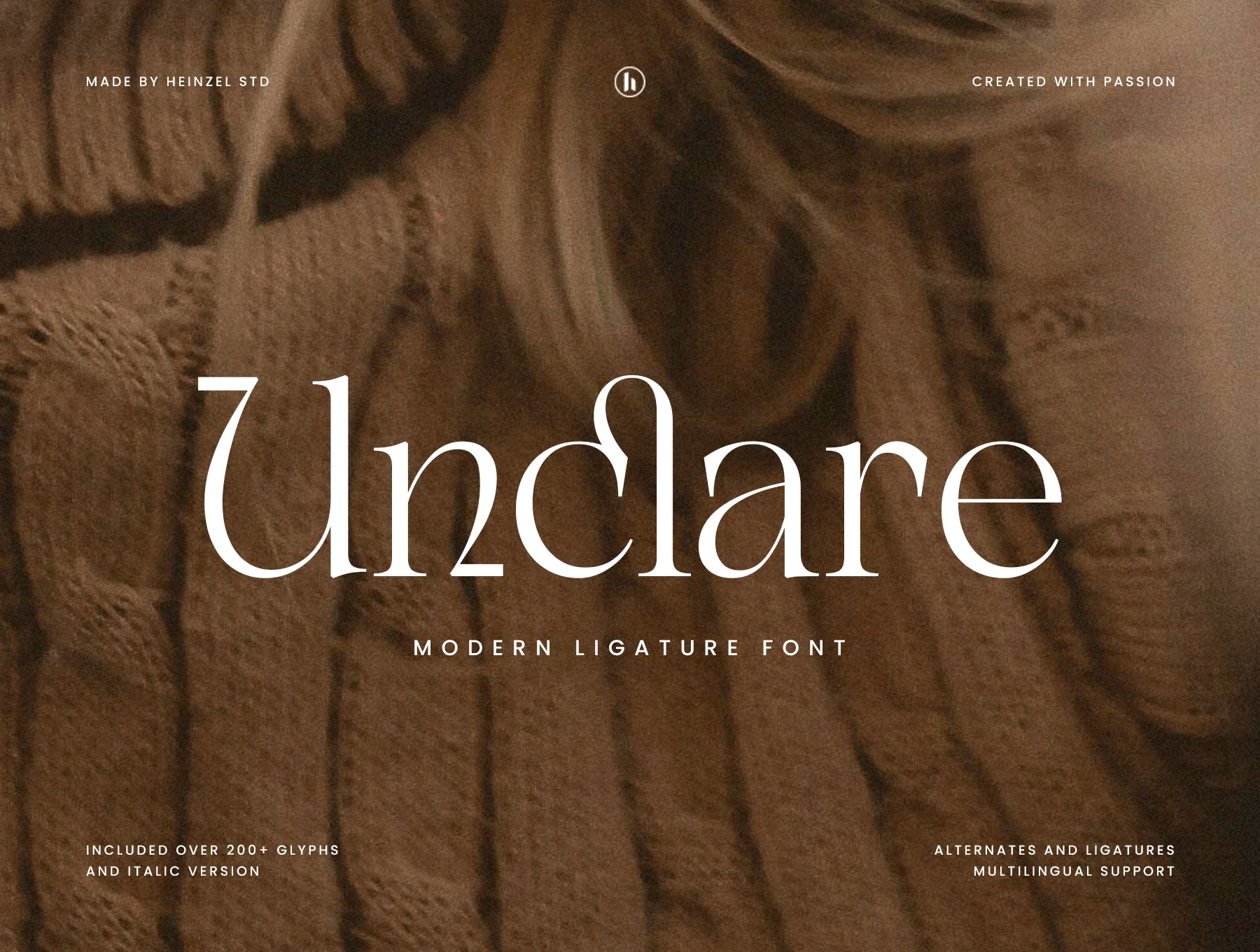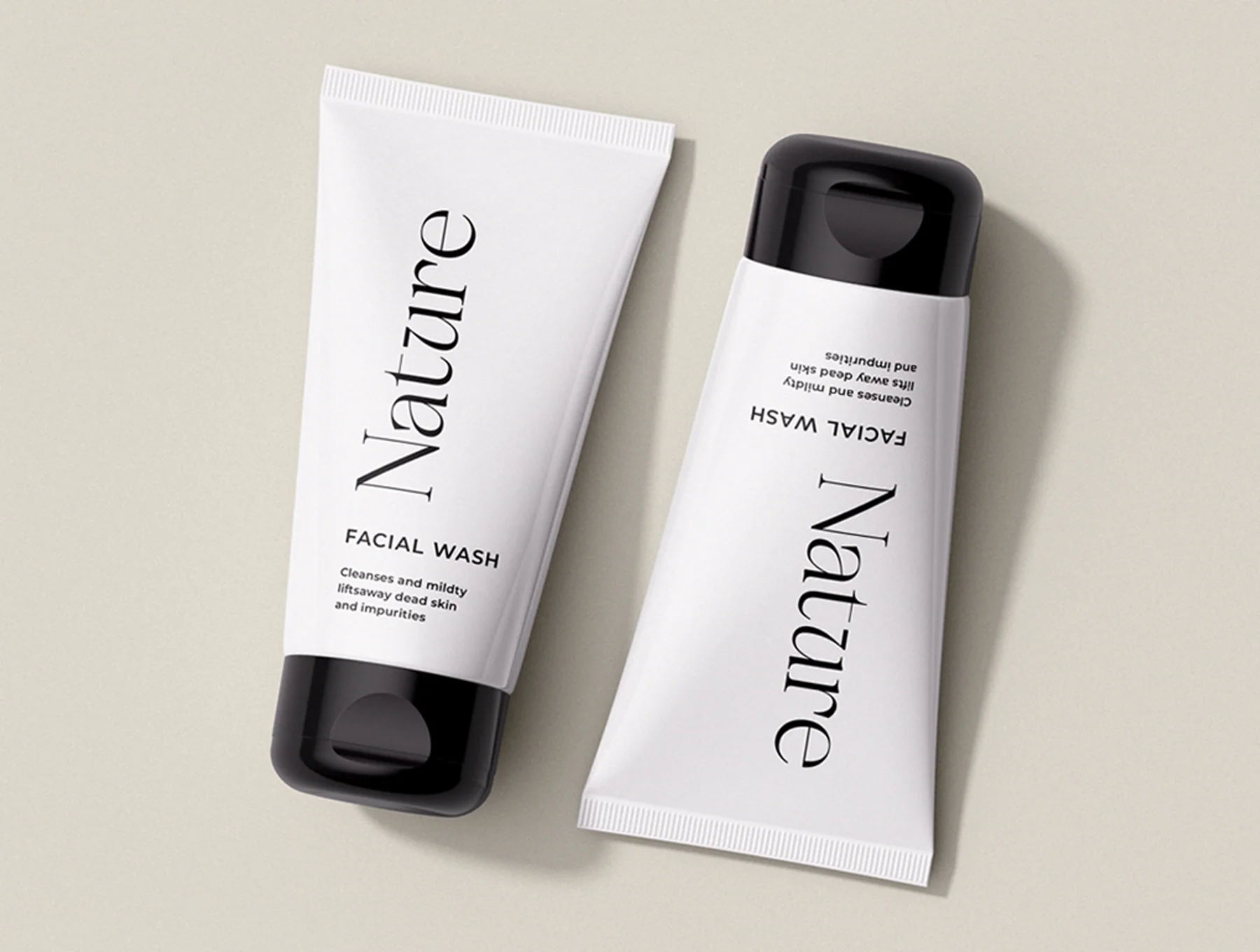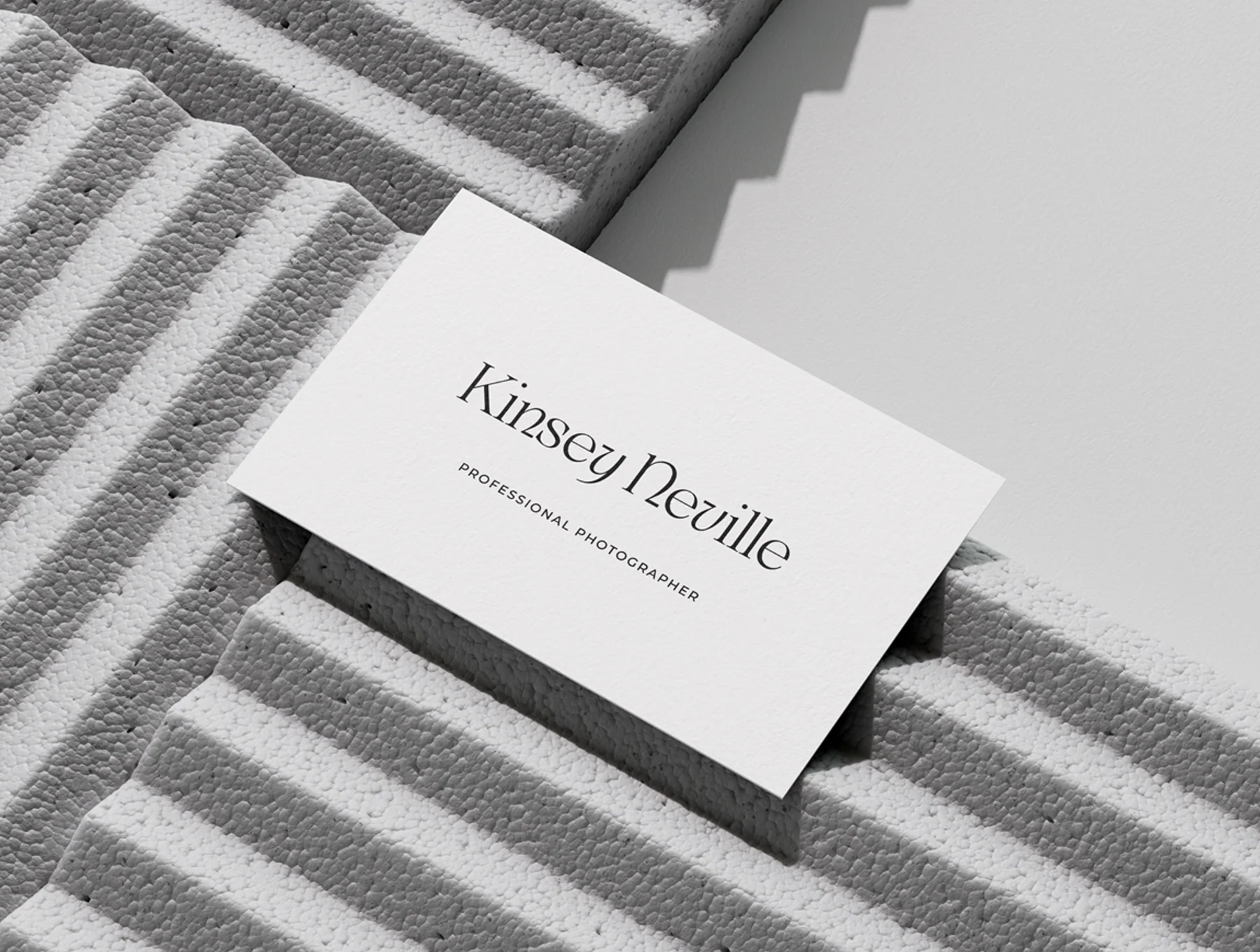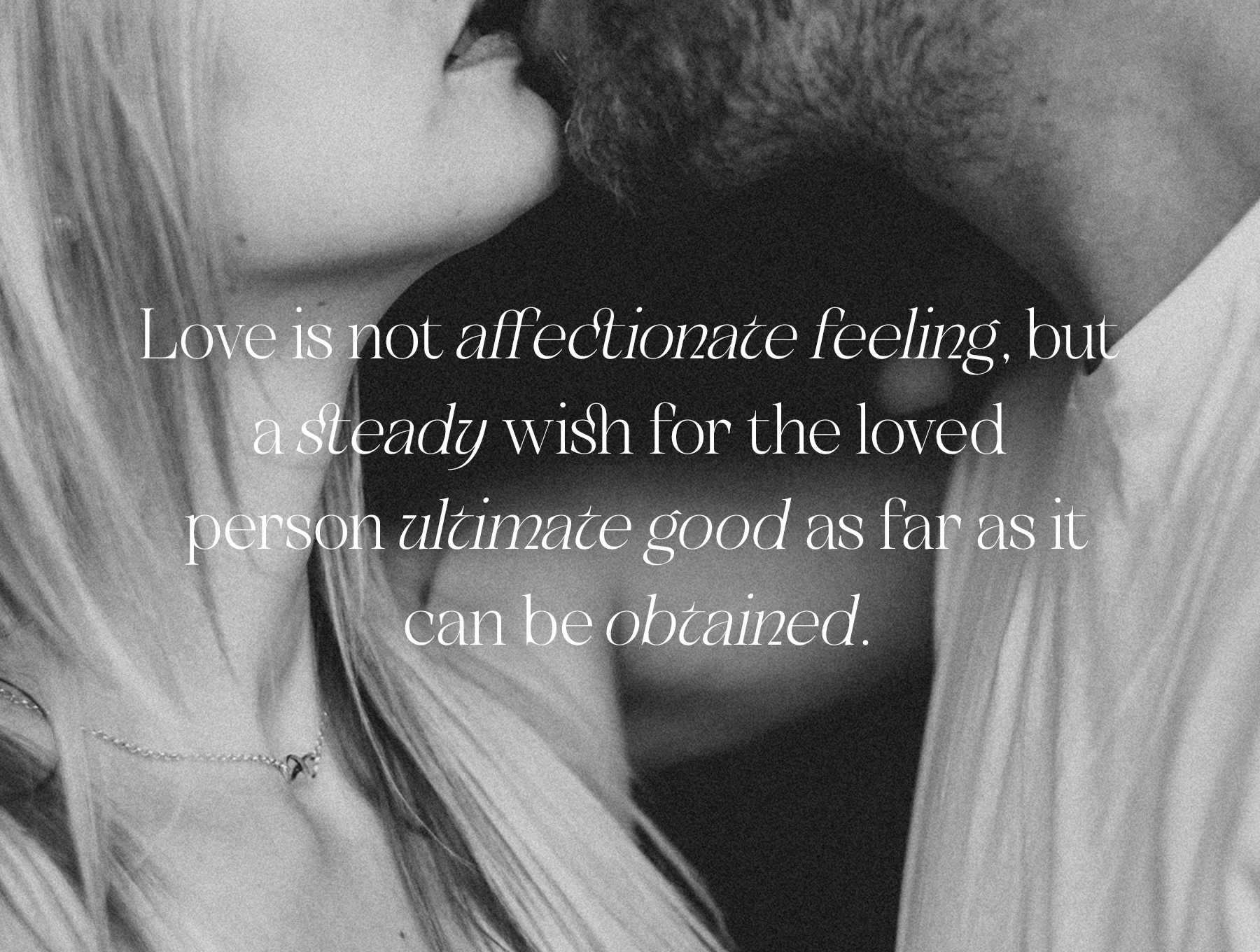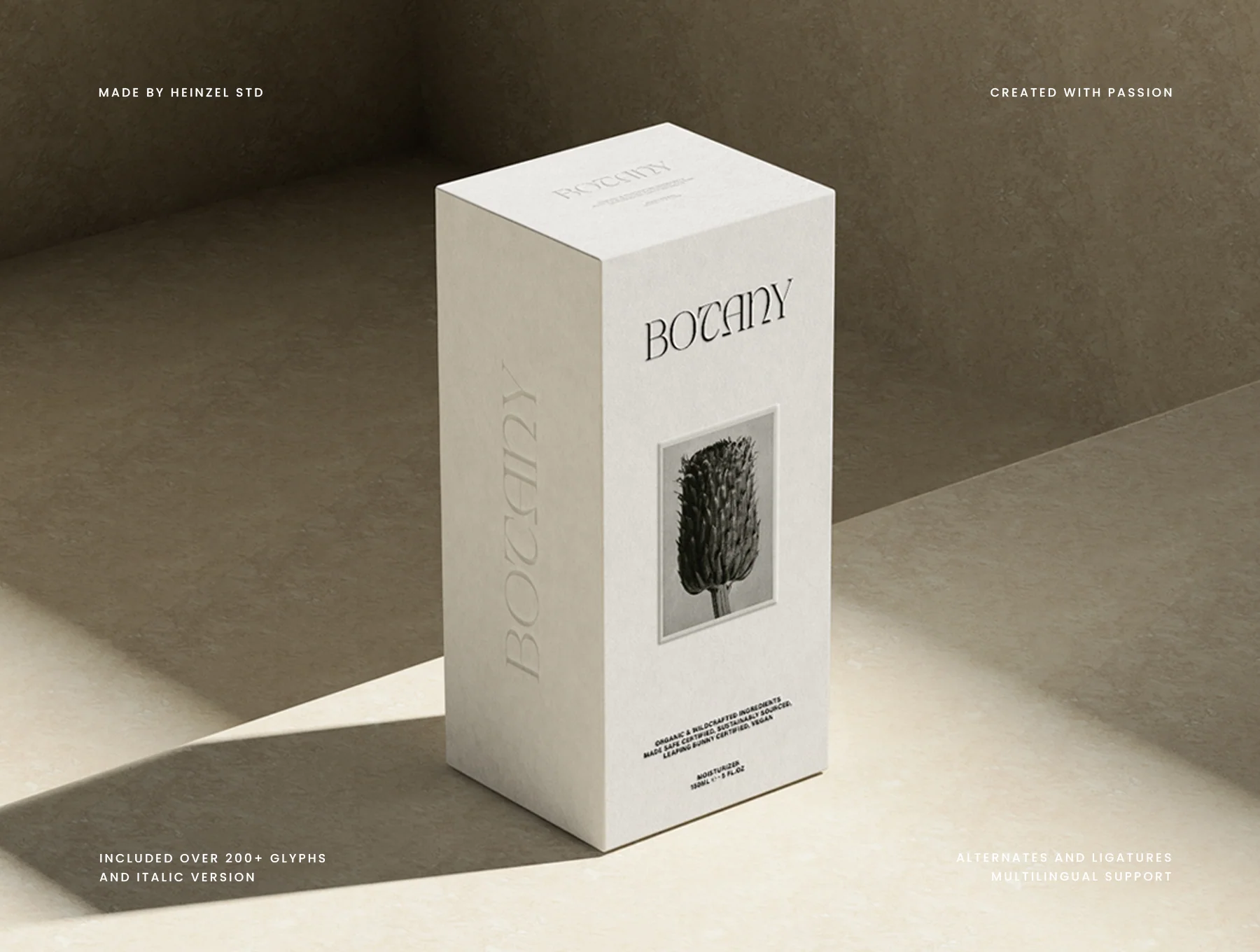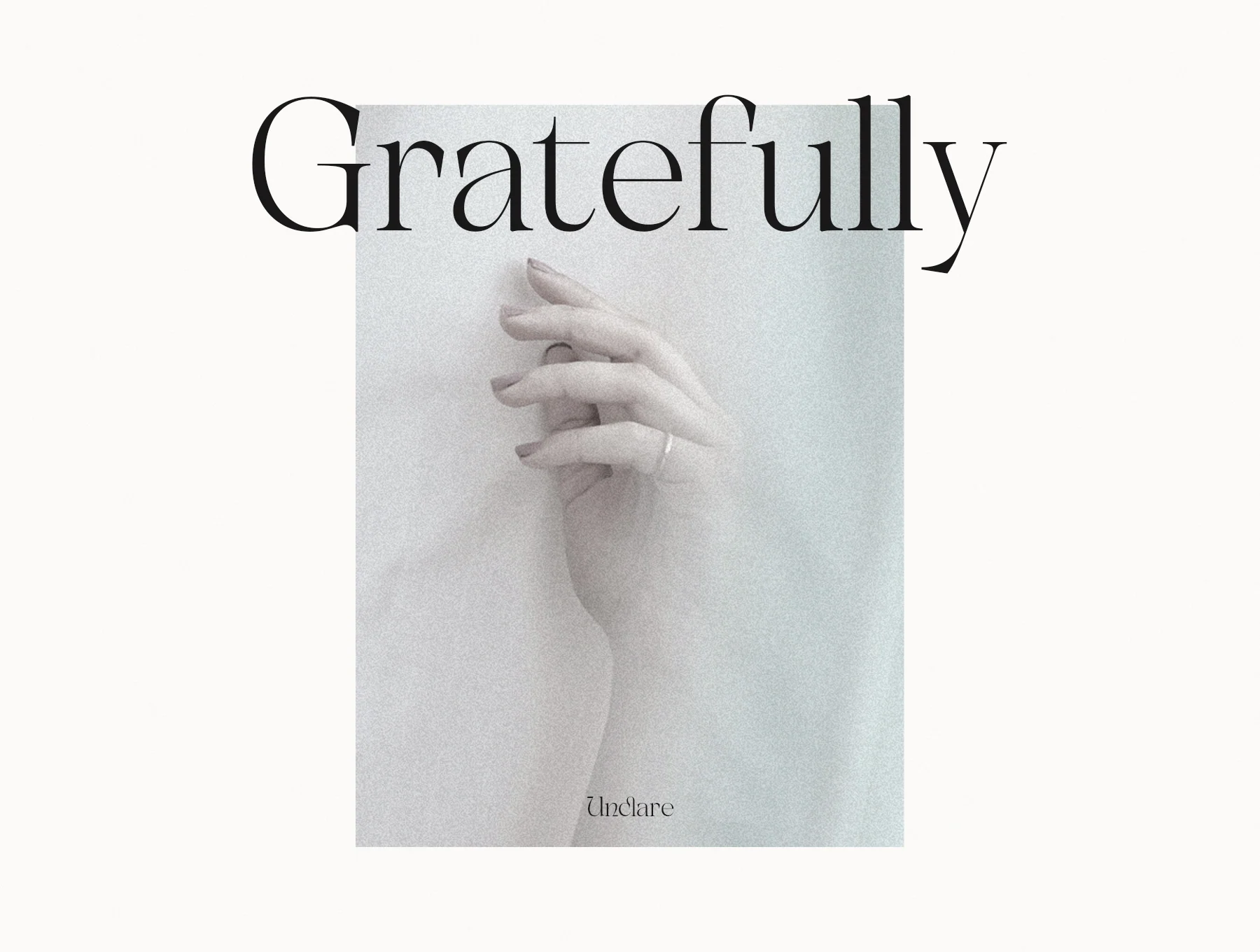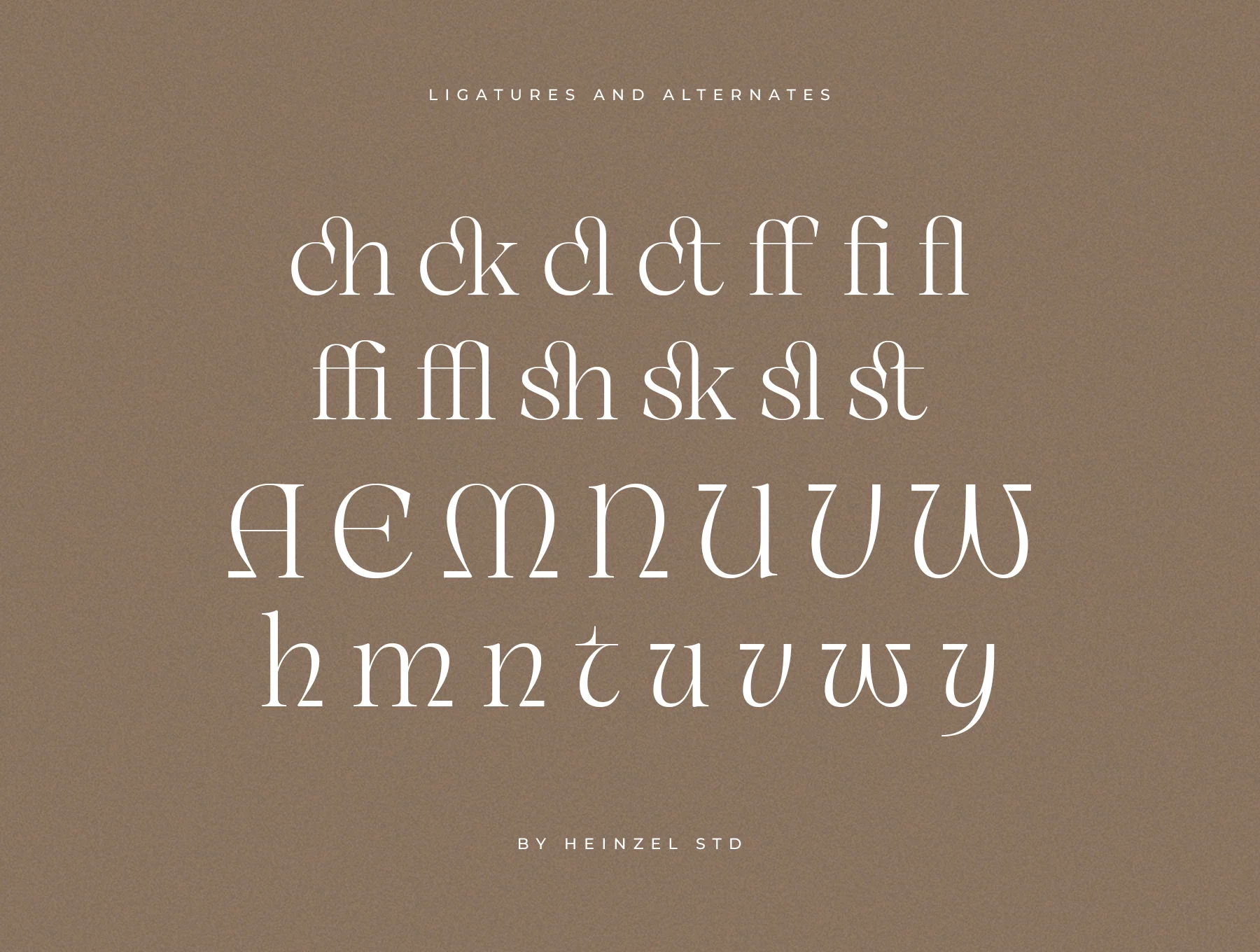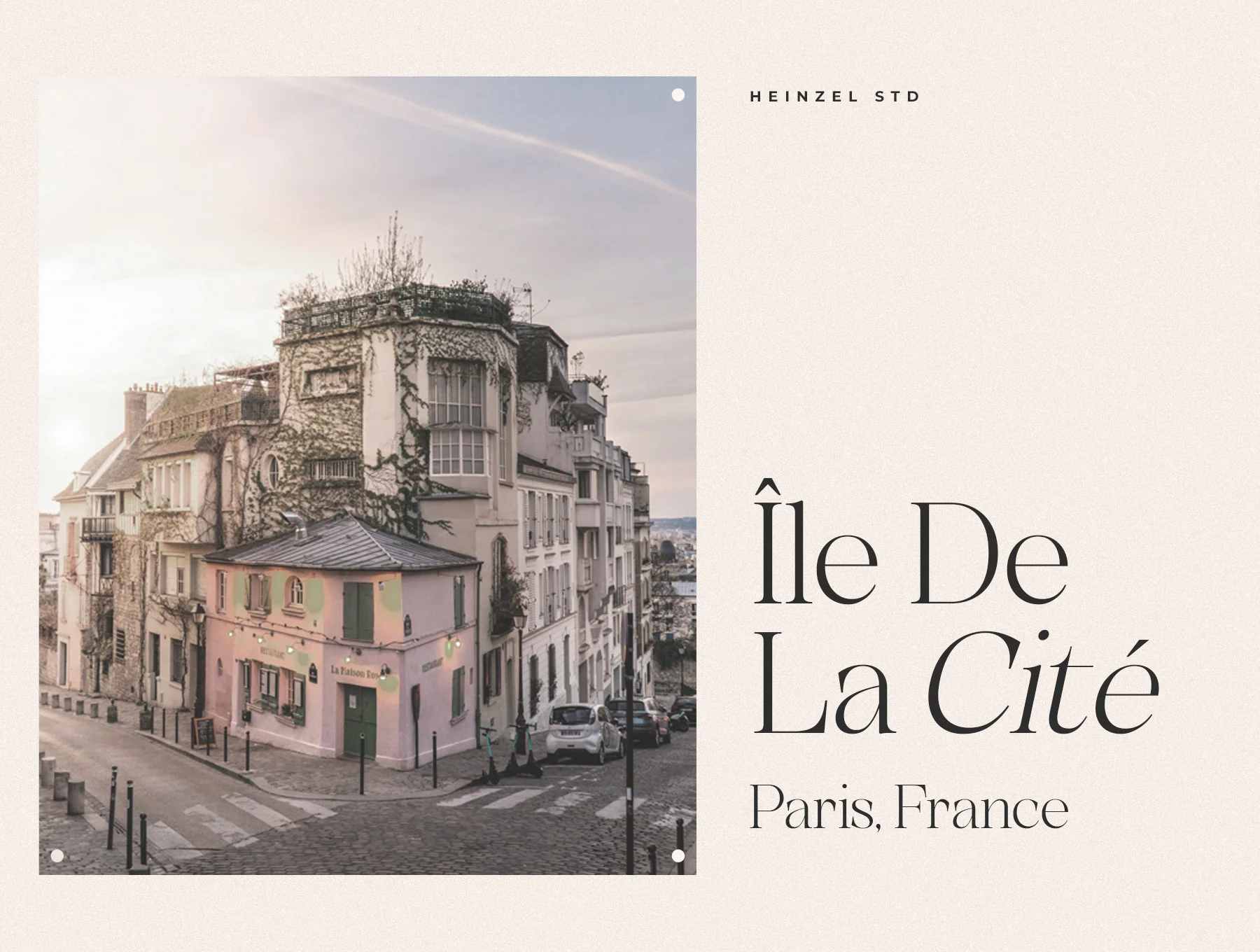
Unclare Modern Ligature Font
Unclare contemporary ligature typeface
Linked glyphs
Alternate characters
Upright and italic styles
Unclare is a refined contemporary serif typeface with stylish ligatures. Its alluring look is ideal for logos, titles, brand designs, wedding invites, elegant stationery, standout social posts, and more. PUA encoding lets you easily access every special glyph.